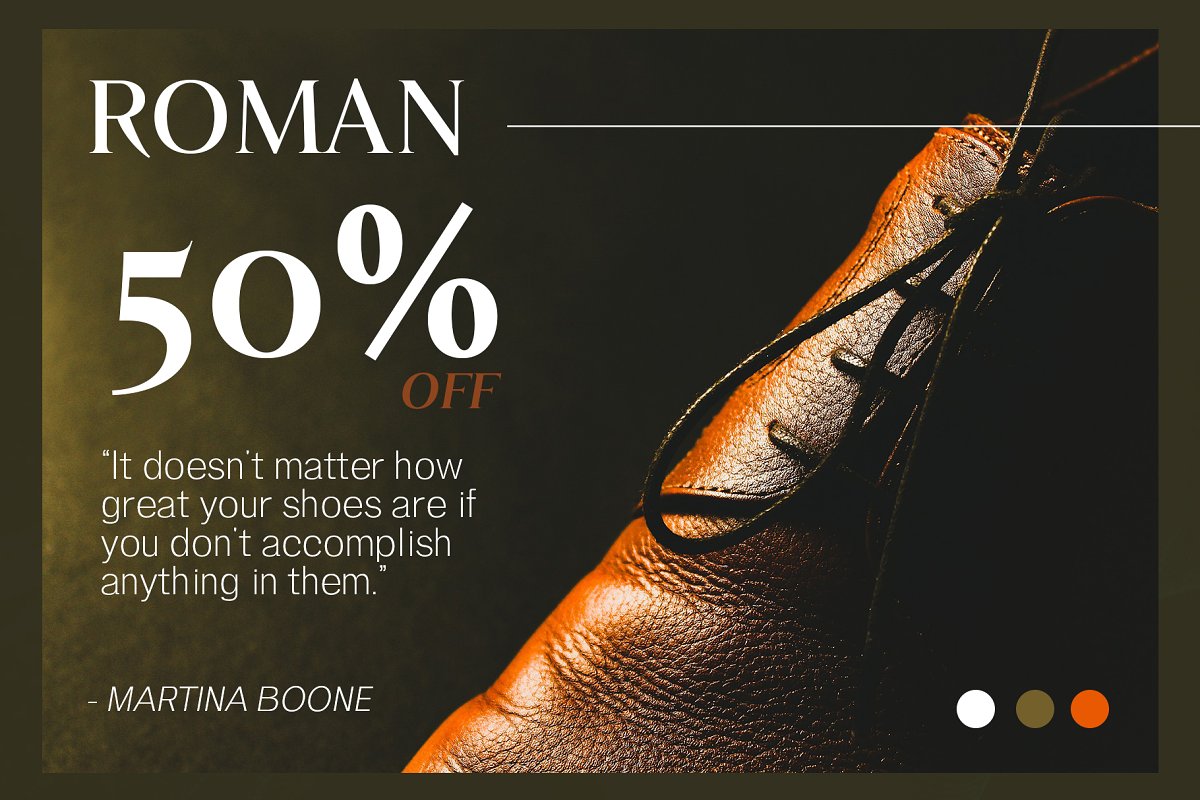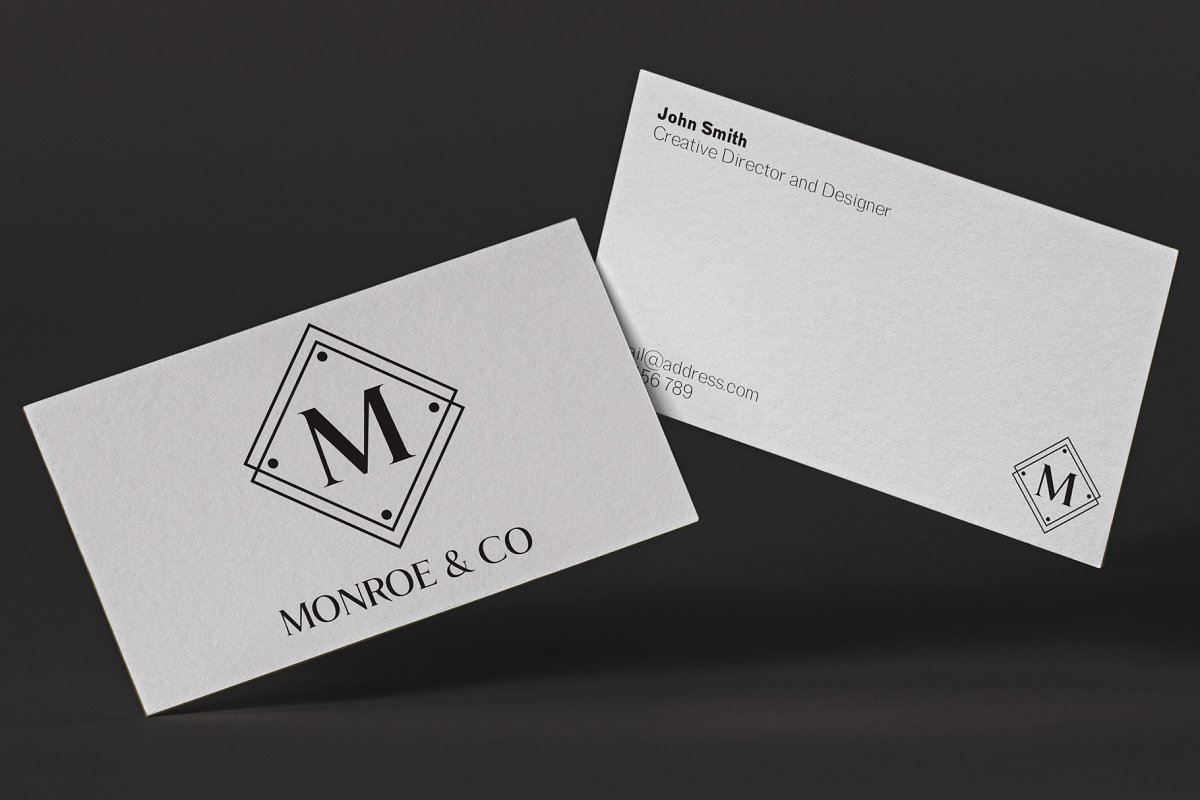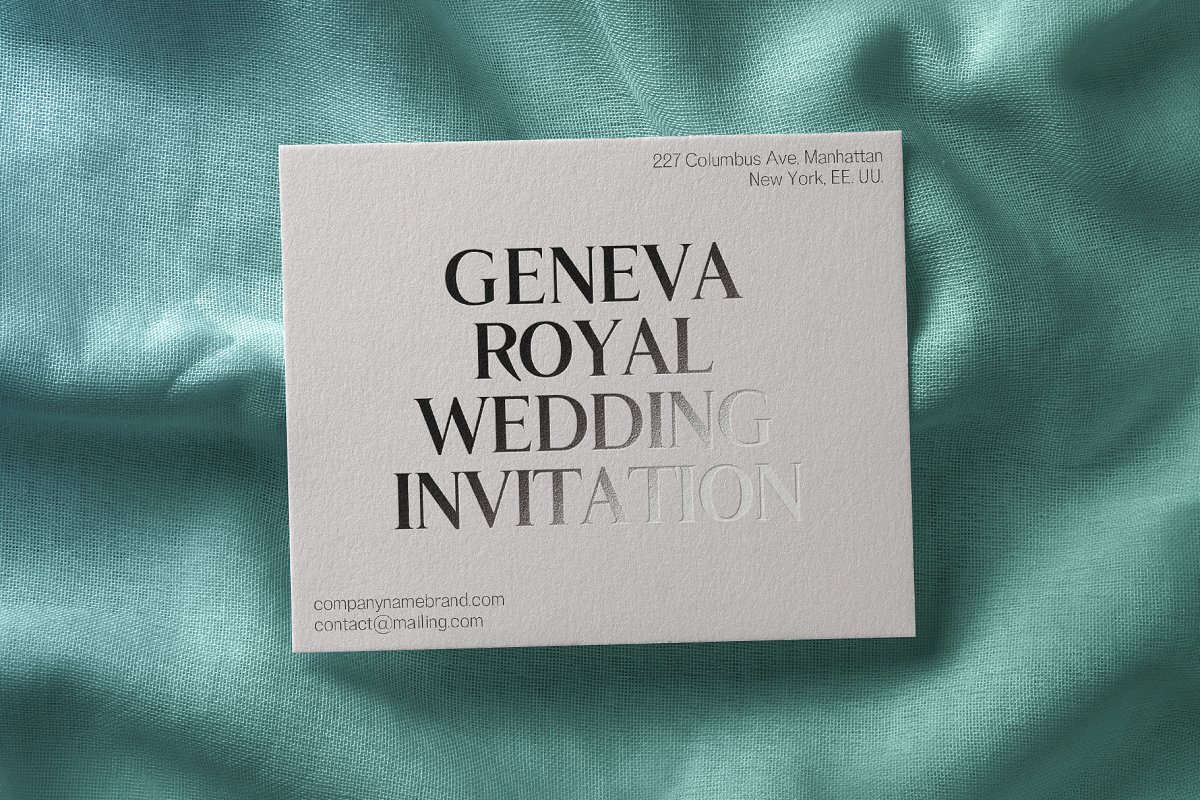
GENEVA Typeface Duo Font Family Free Download
About the GENEVA Typeface Duo Font
An elegant family of 8 fonts, Geneva is a modern serif and sans font pairing that perfectly compliments each other, With both masculine and feminine qualities; this font is perfect for your next project and an essential digital asset to own, What you will get:ZIP file containing OTF files of all 8 fontsPDF Installation instructionsIf you have any questions, please don’t hesitate to get in touch